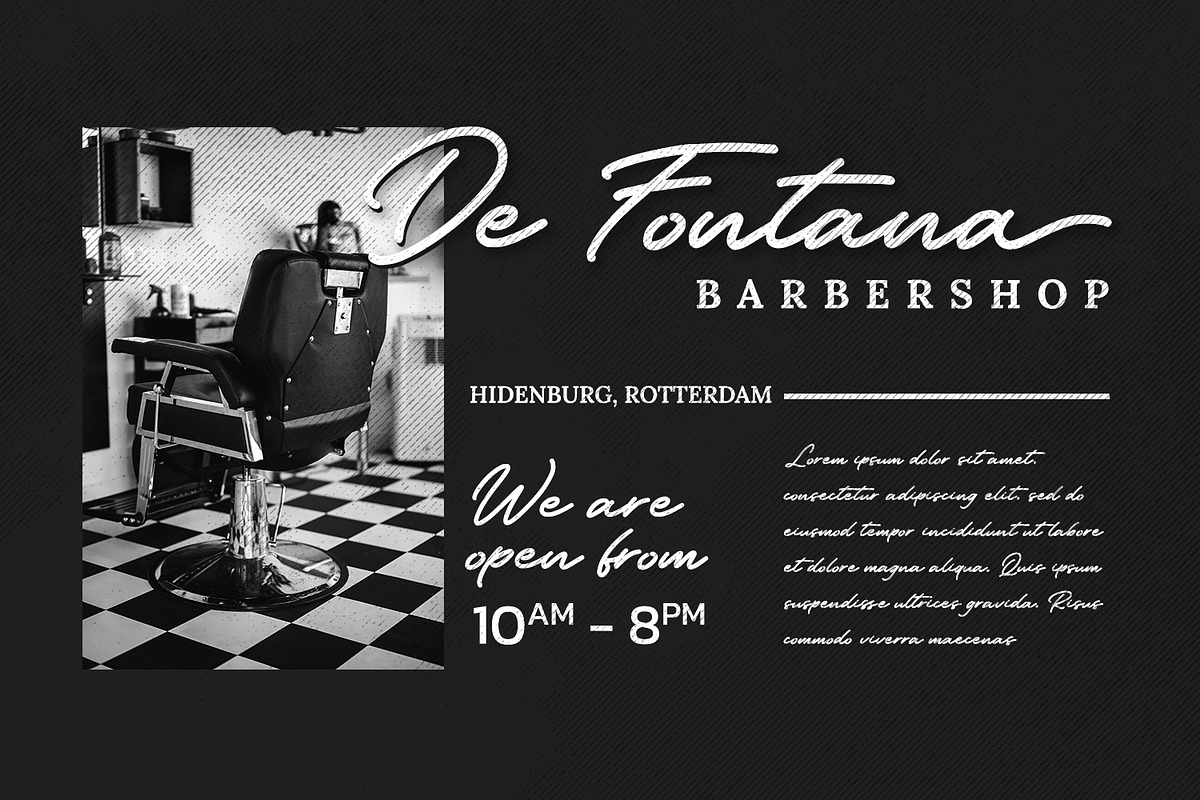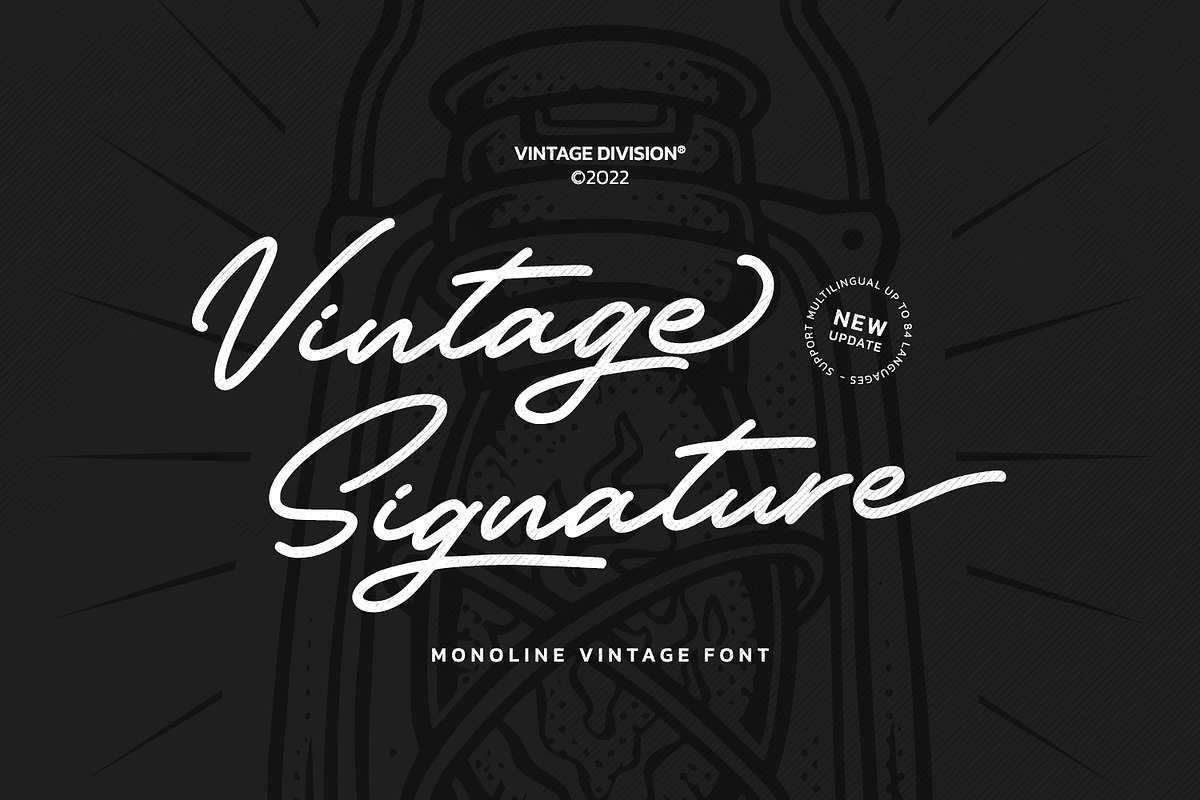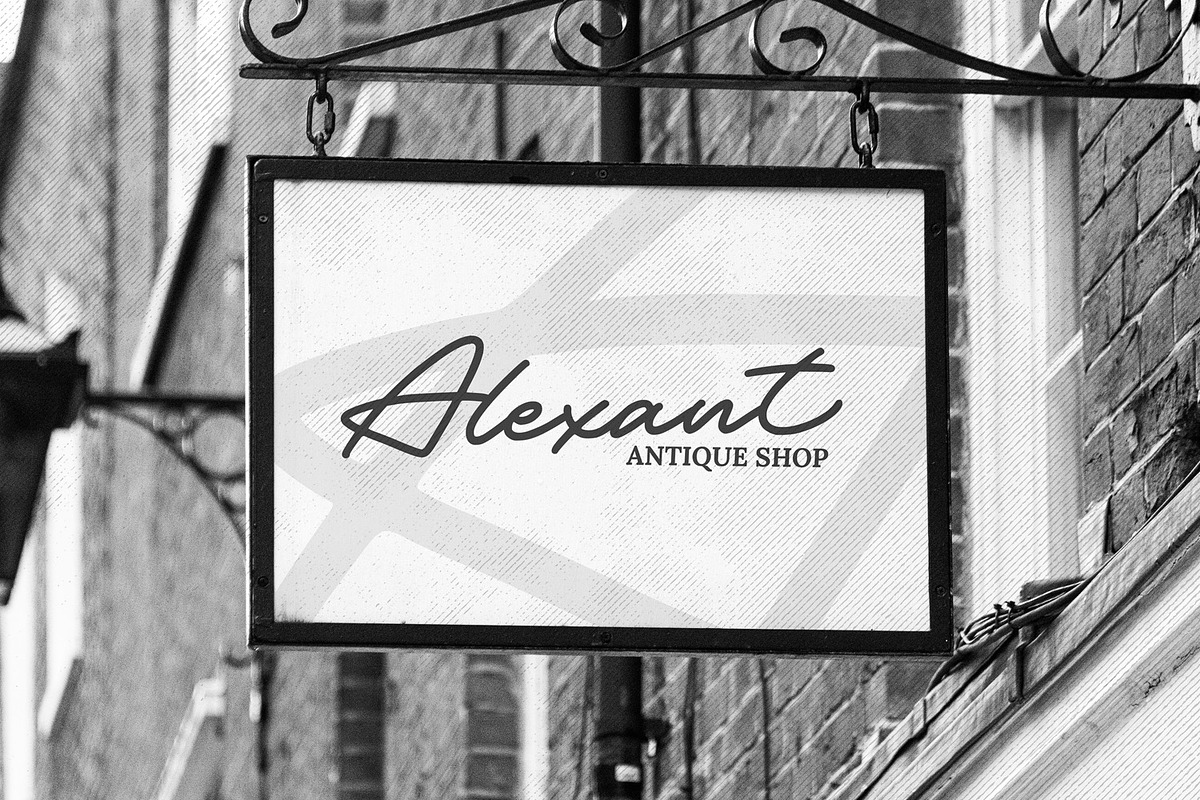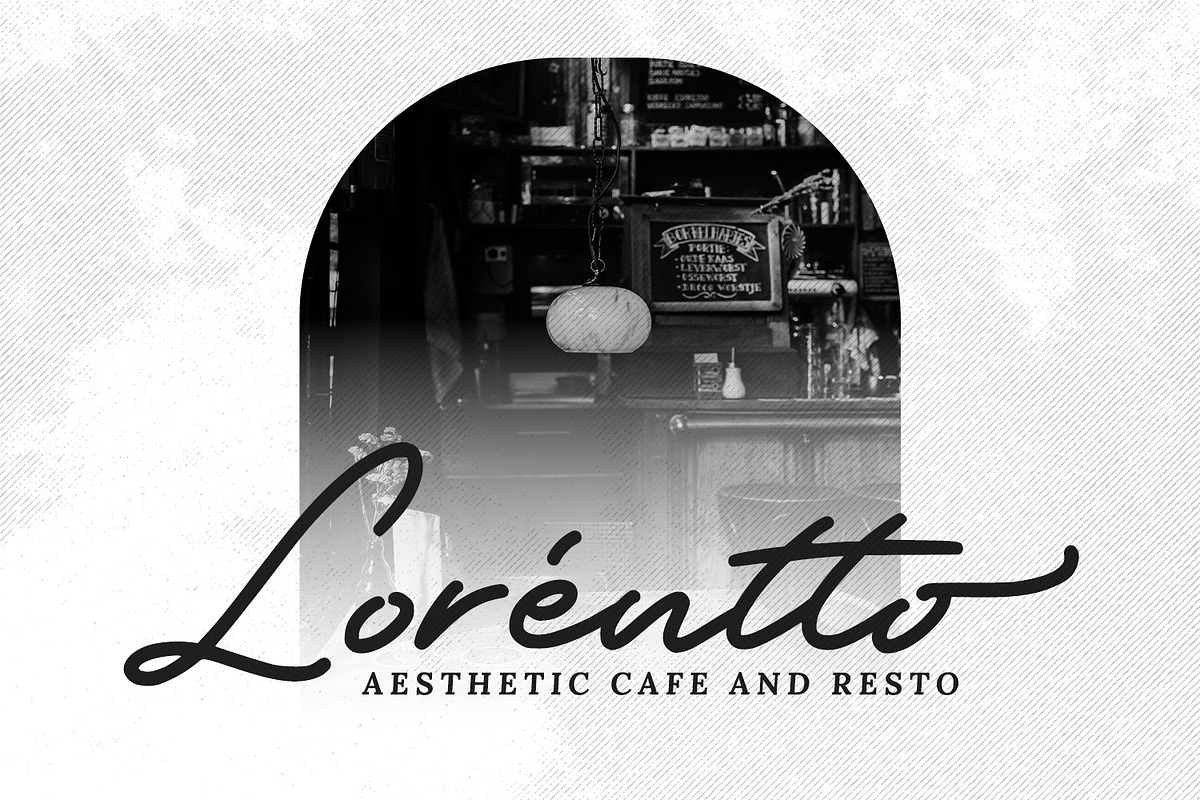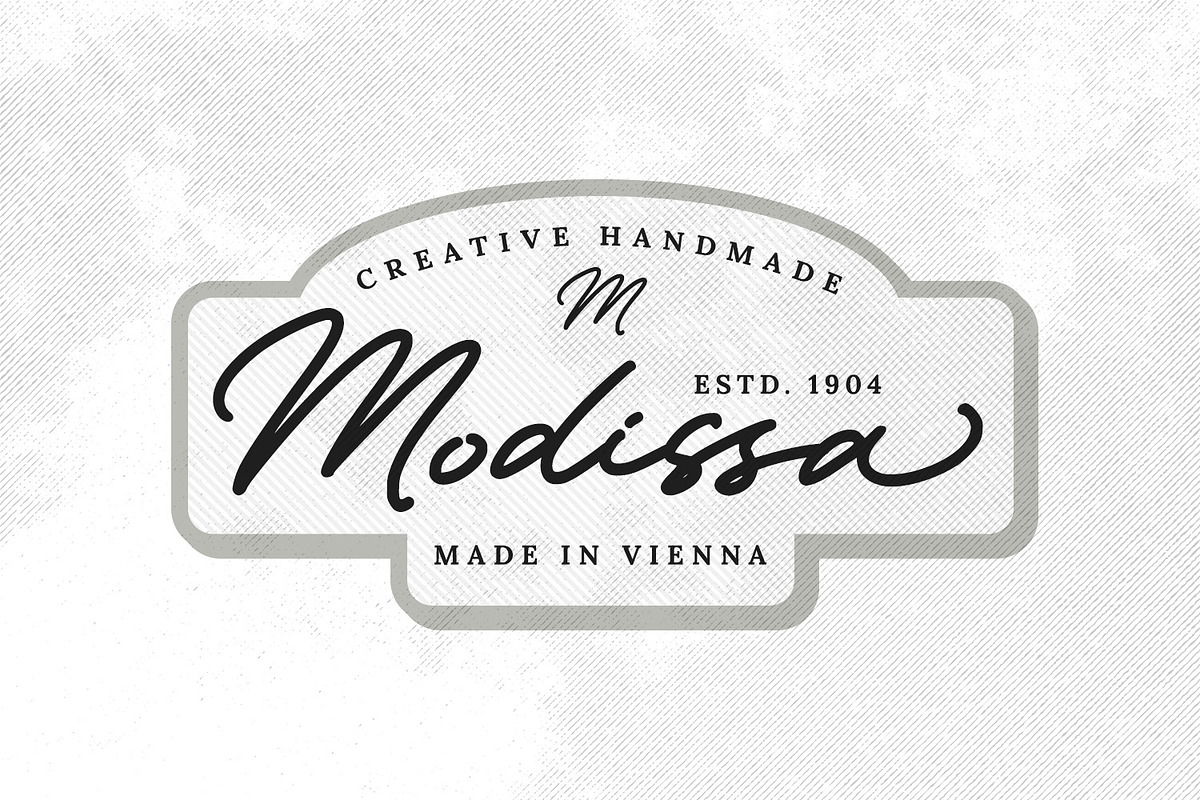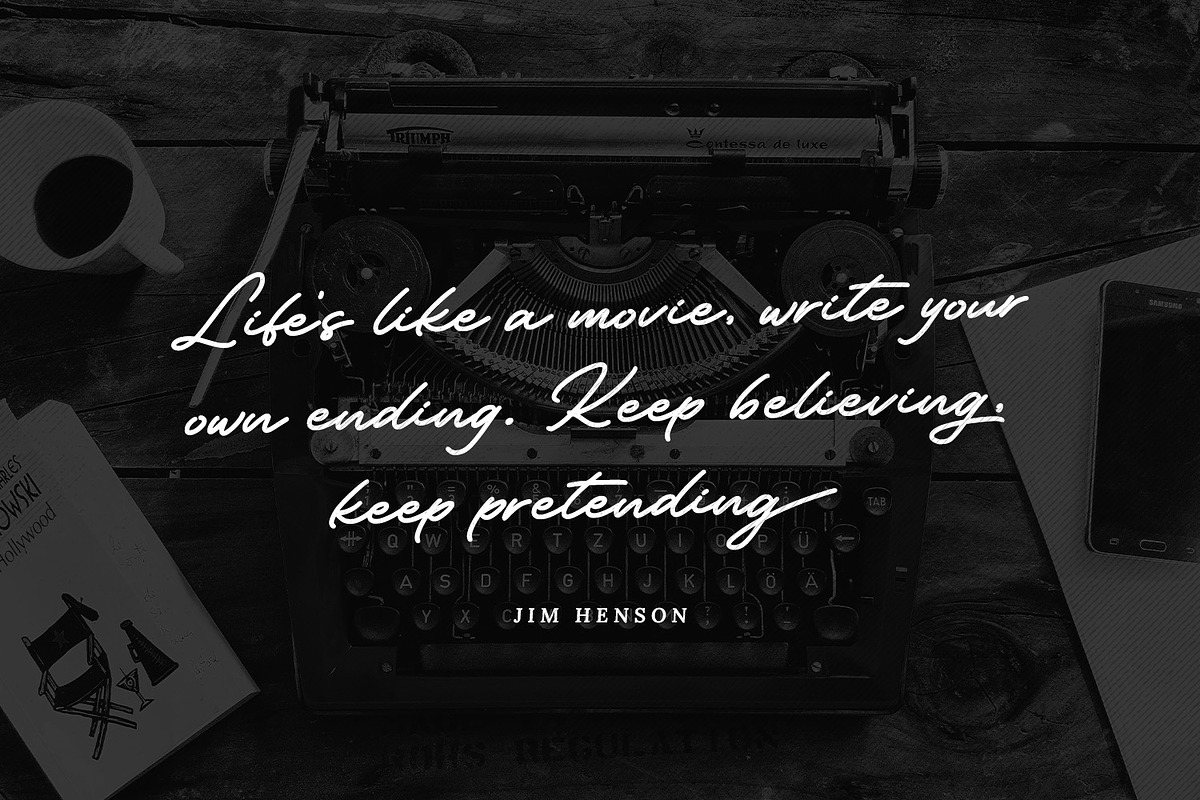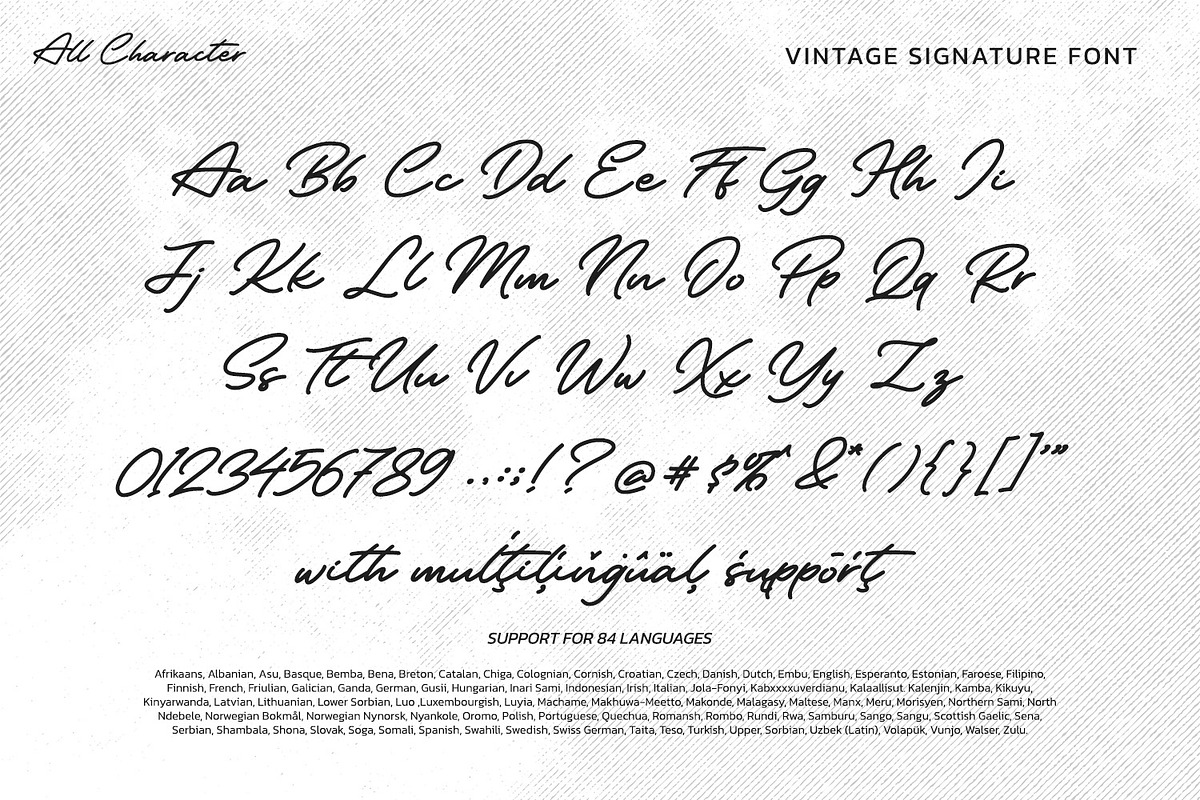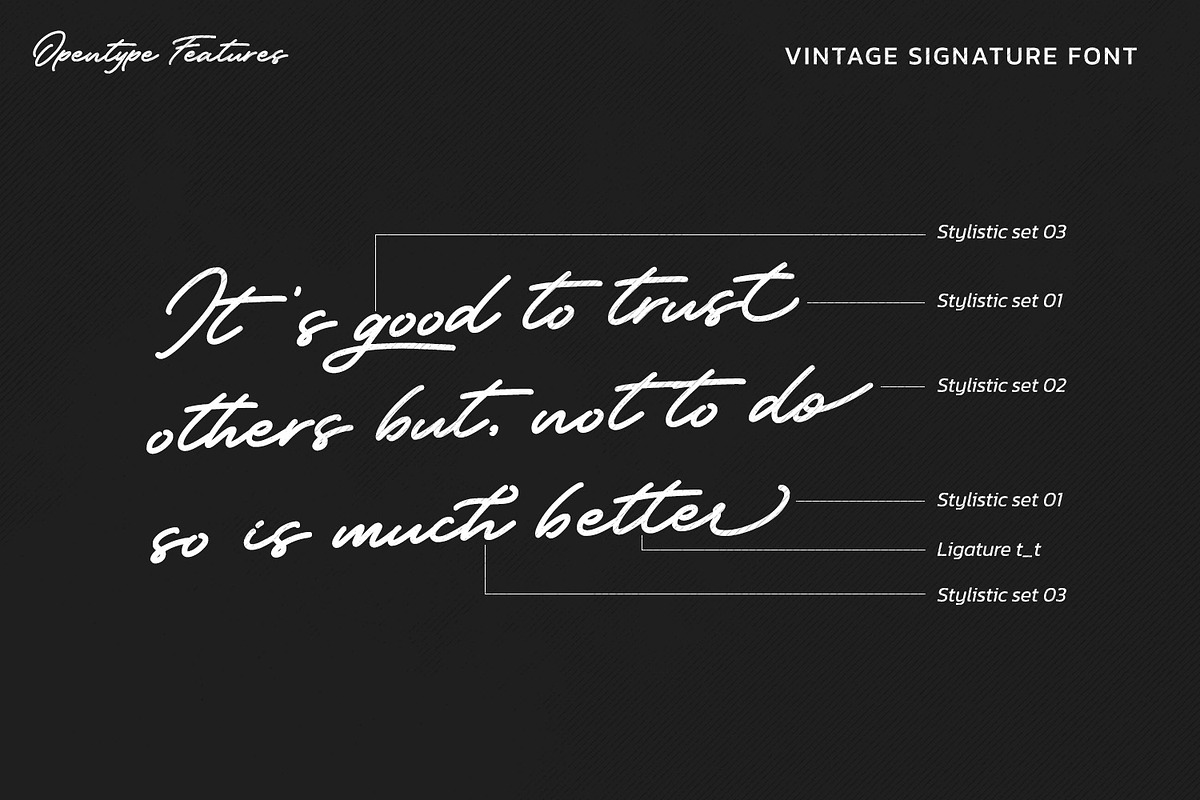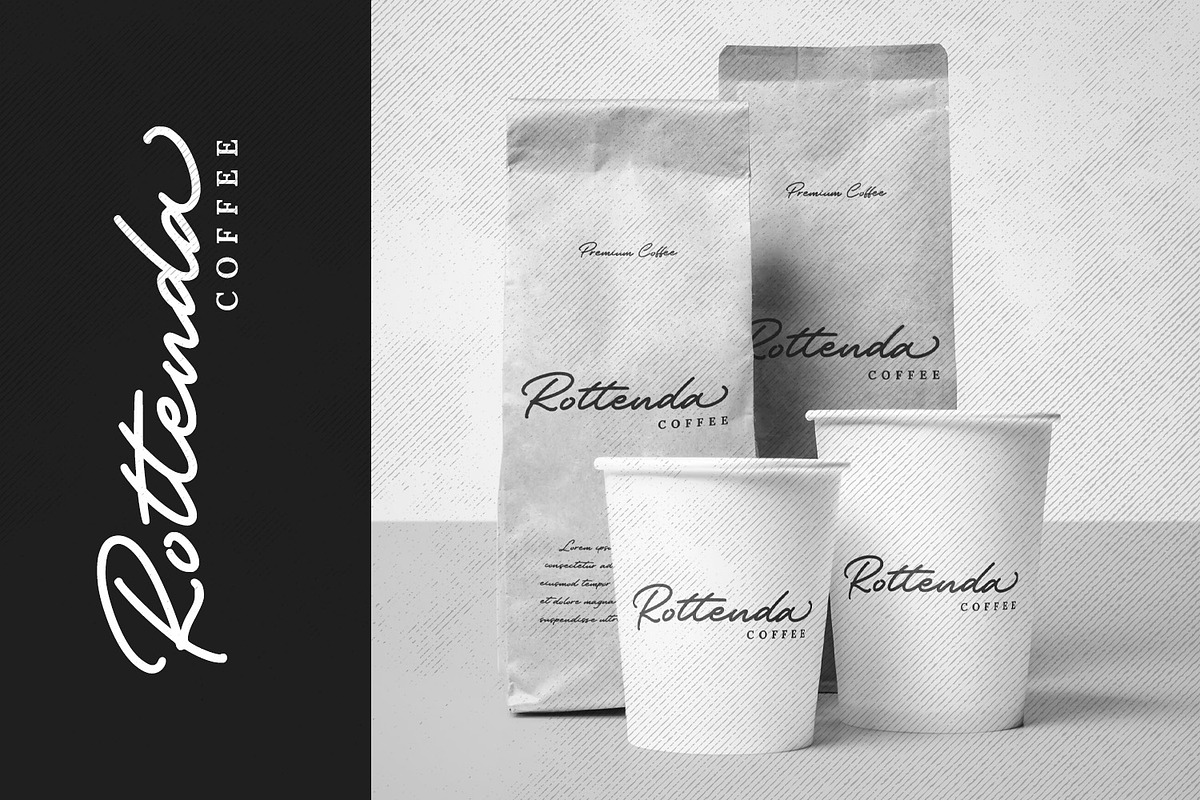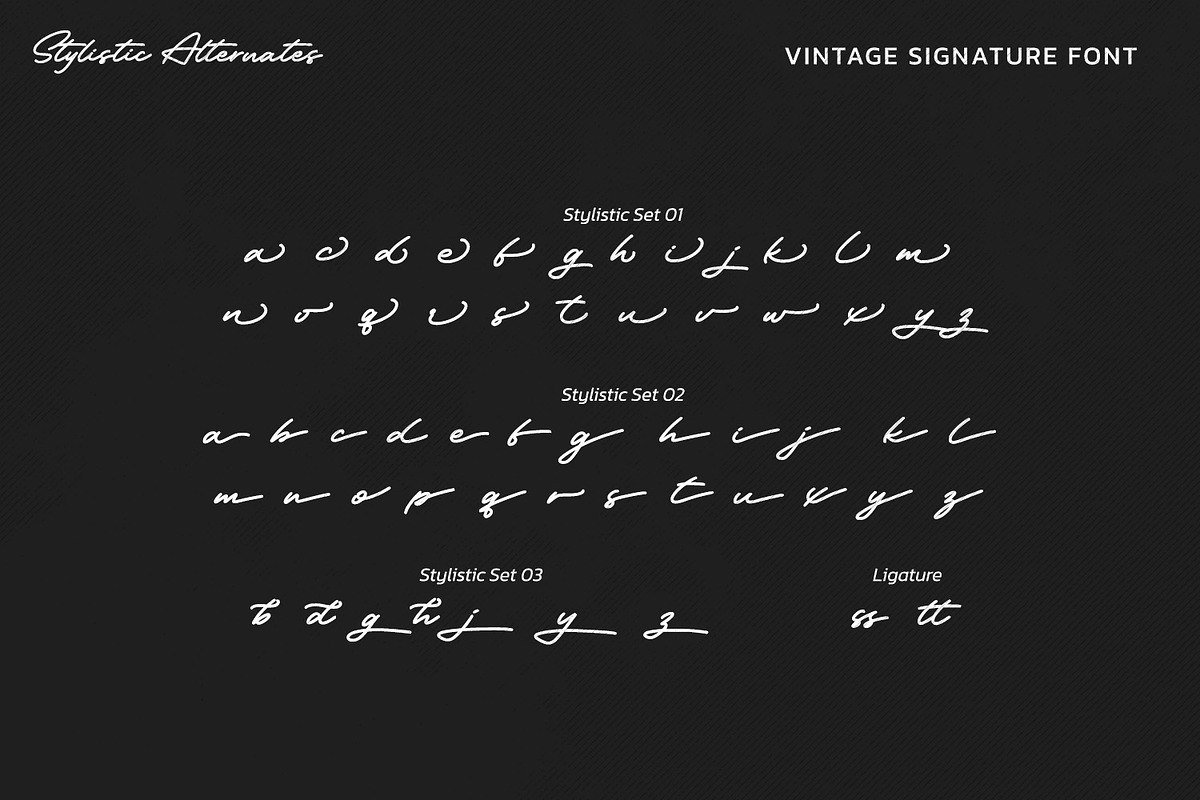
Vintage Signature
Looking for a font that will make your branding stand out? Do you want to make a touch of elegance and retro for your designs? This font was created for you!
Vintage Signature- A Script Font
Vintage Signature is a fabulous signature font, carefully handcrafted combined with a little bit retro style to become a classic favorite. Its casual charm makes it appear wonderfully down-to-earth, readable and, ultimately, incredibly versatile. Vintage Signature will look outstanding in any context, whether it’s being used on busy backgrounds or as a standalone headline! Well suited to titles, poster designs, branding, logos, and many more.
Our font always includes Multilingual Support to make your branding reach a global audience.
- Stylistic Set